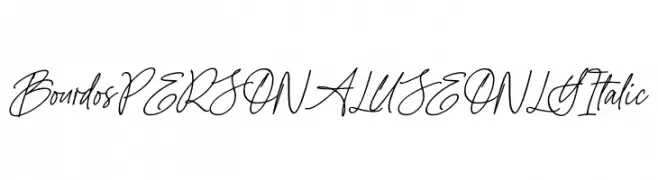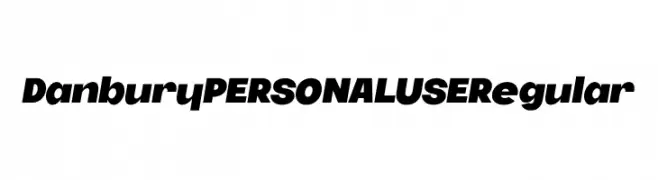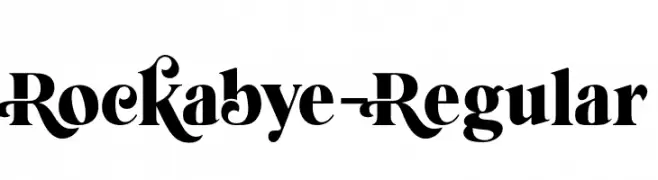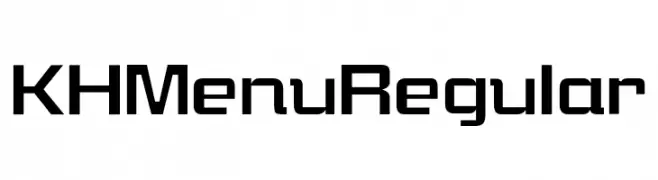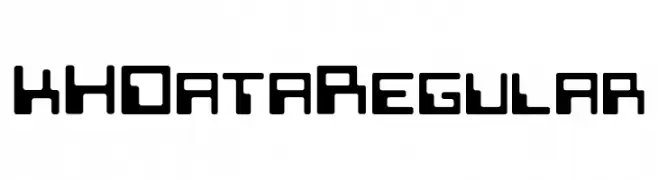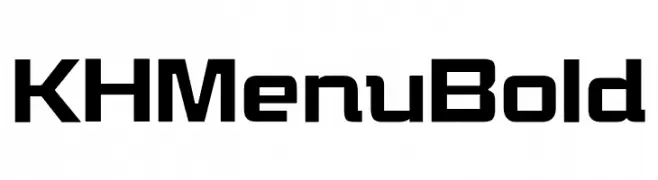
A rugged, hand-drawn font with a distressed, historical appearance.
A dynamic and elegant script font with a flowing, handwritten style.
Bold, slanted font with a modern, dynamic style.
A bold, high-contrast serif font with dramatic strokes and elegant serifs.
A bold, brush-style font with dynamic, slanted strokes for an energetic look.
A modern, geometric font with bold, clean lines and a slightly condensed style.
A bold, geometric font with a futuristic, digital aesthetic.
A bold, modern font with geometric, angular characters.
A bold, decorative font with gothic and tribal influences, featuring intricate and angular designs.
A sleek, modern italic font with a geometric and dynamic style.